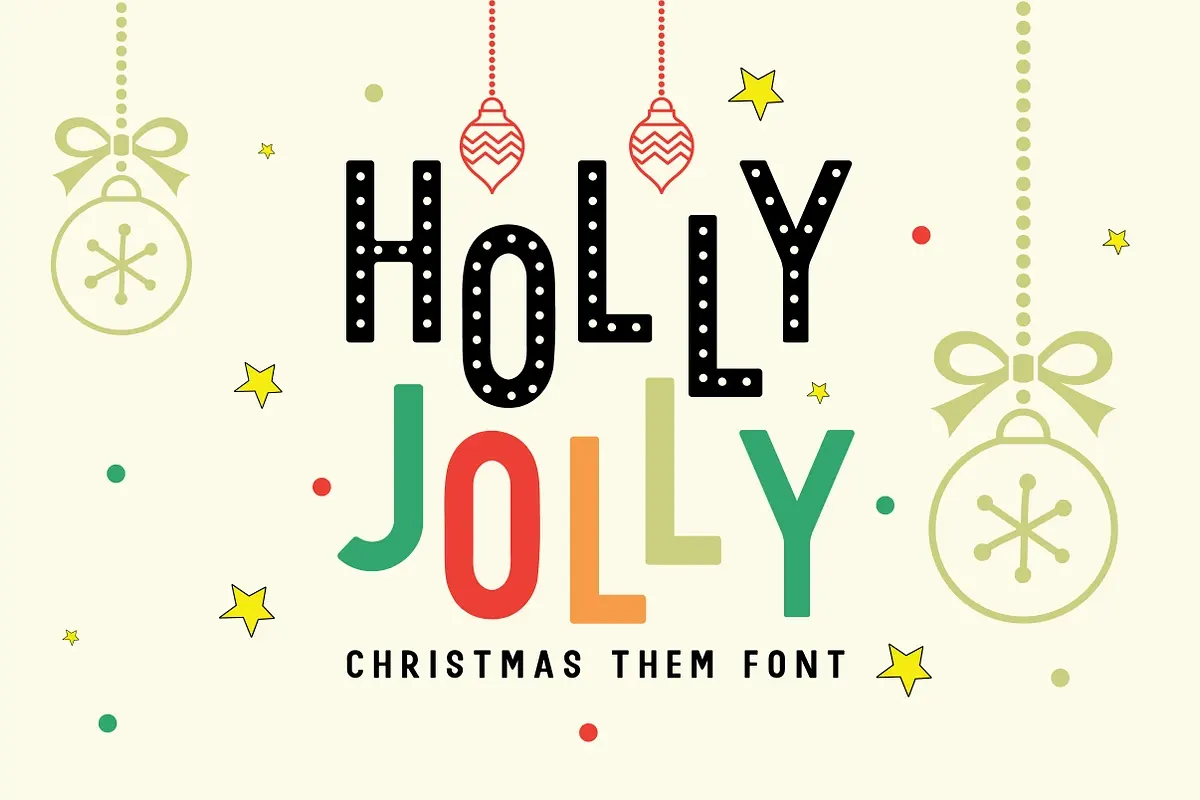
The Holly Jolly Font Free Download is a cheerful and festive typeface that captures the magic of the holiday season. With its playful curves and whimsical style, this font is perfect for Christmas cards, party invitations, gift tags, seasonal packaging, and winter-themed social media posts.
Designed to bring warmth and joy to your designs, Holly Jolly features fun, rounded characters with a handcrafted feel. It includes uppercase and lowercase letters, numbers, punctuation, and multilingual support—making it a versatile choice for all your merry creations.